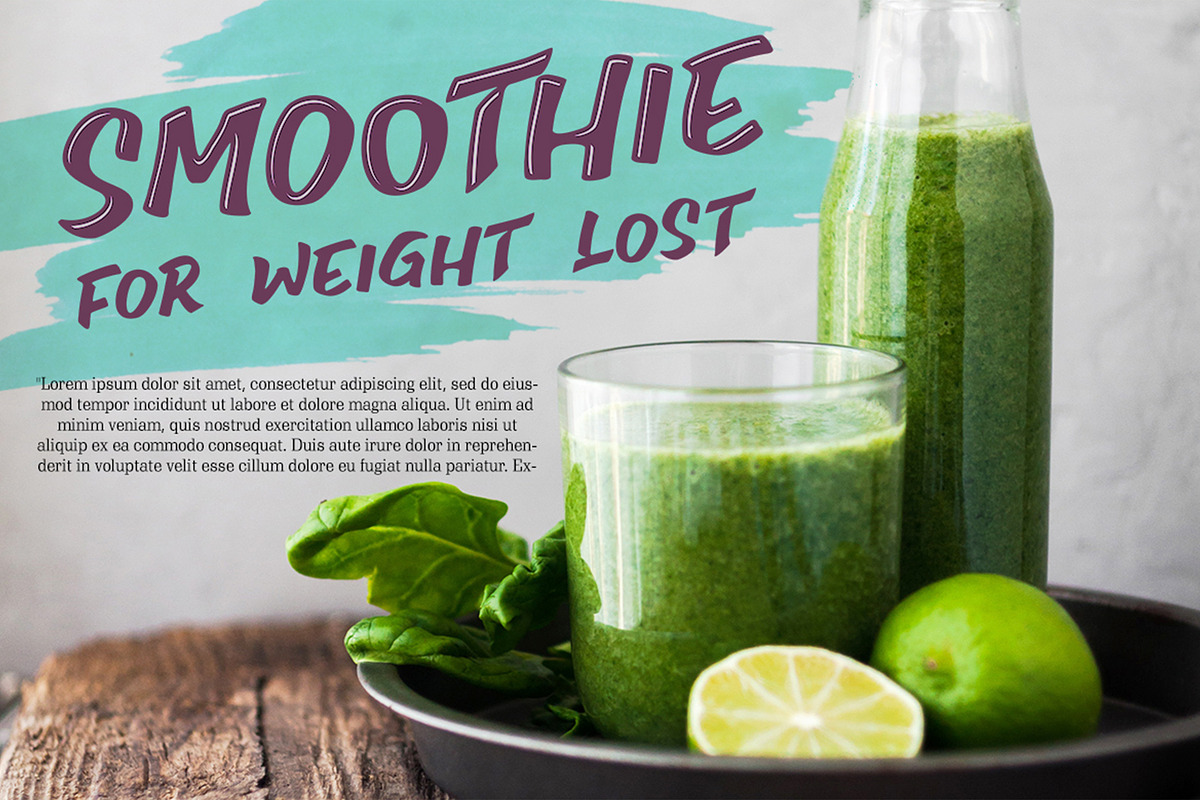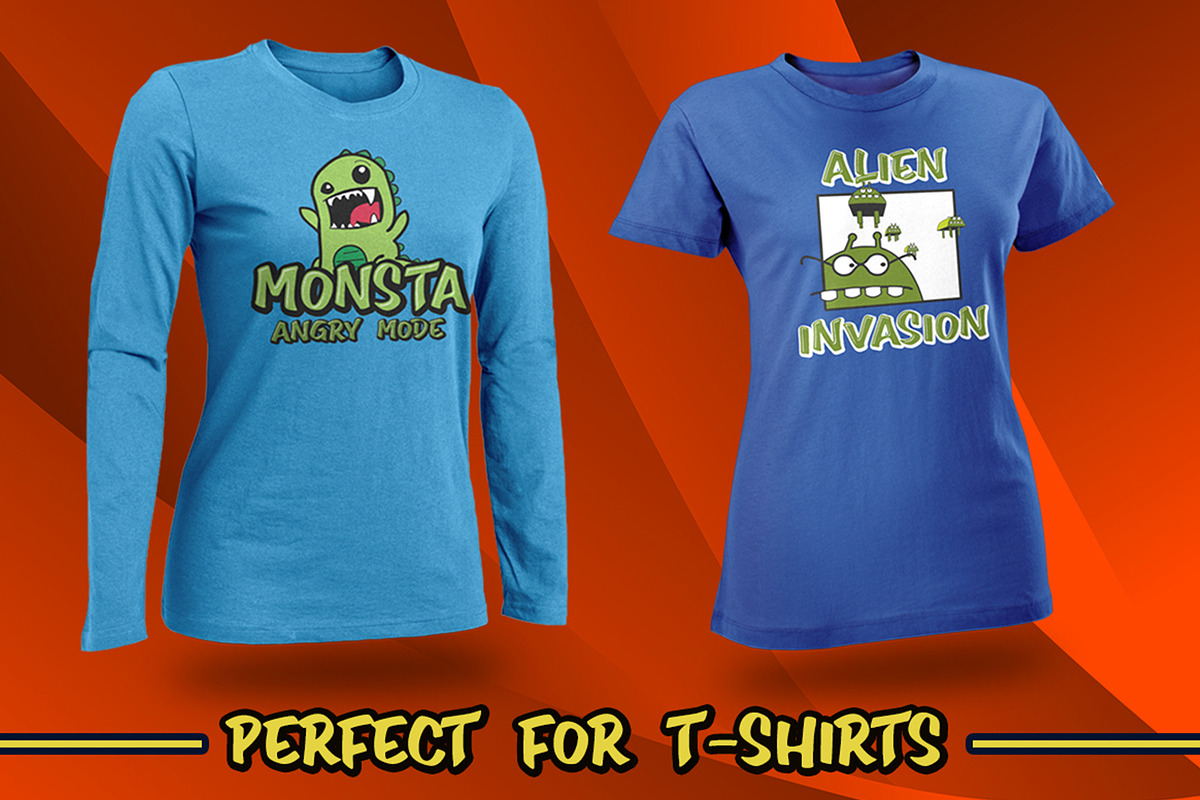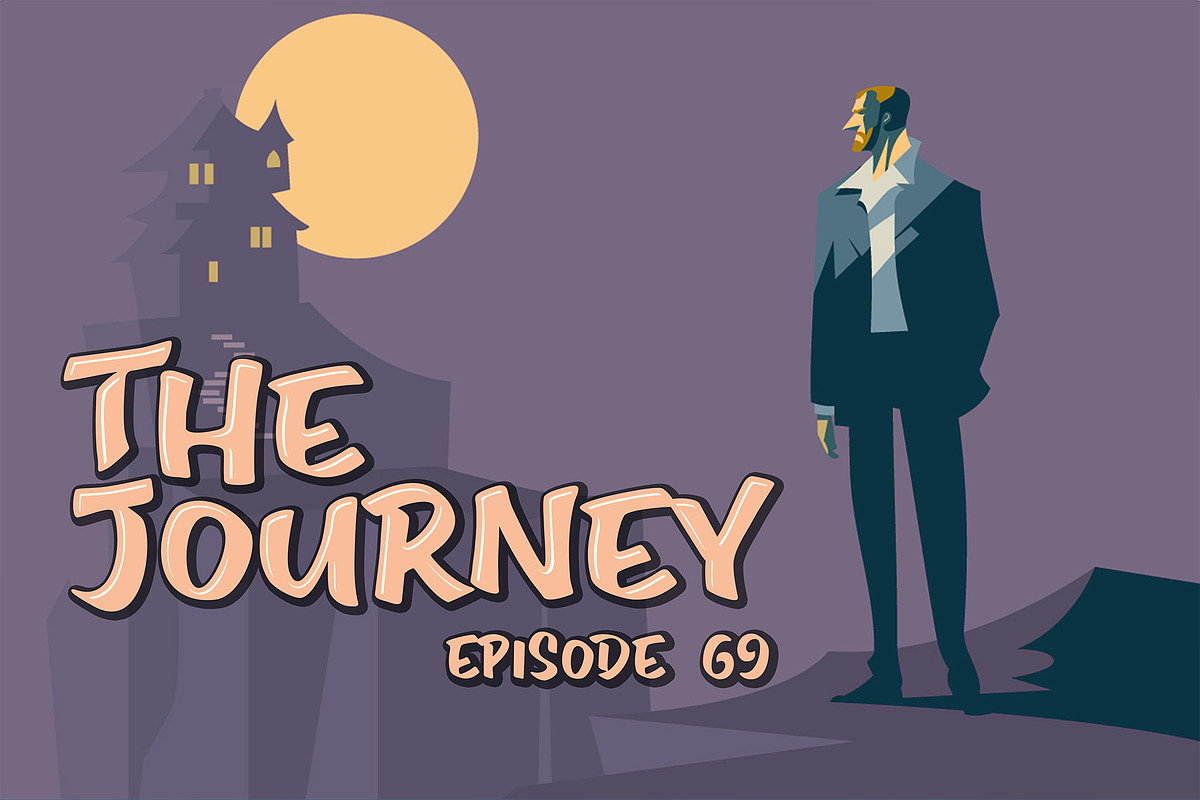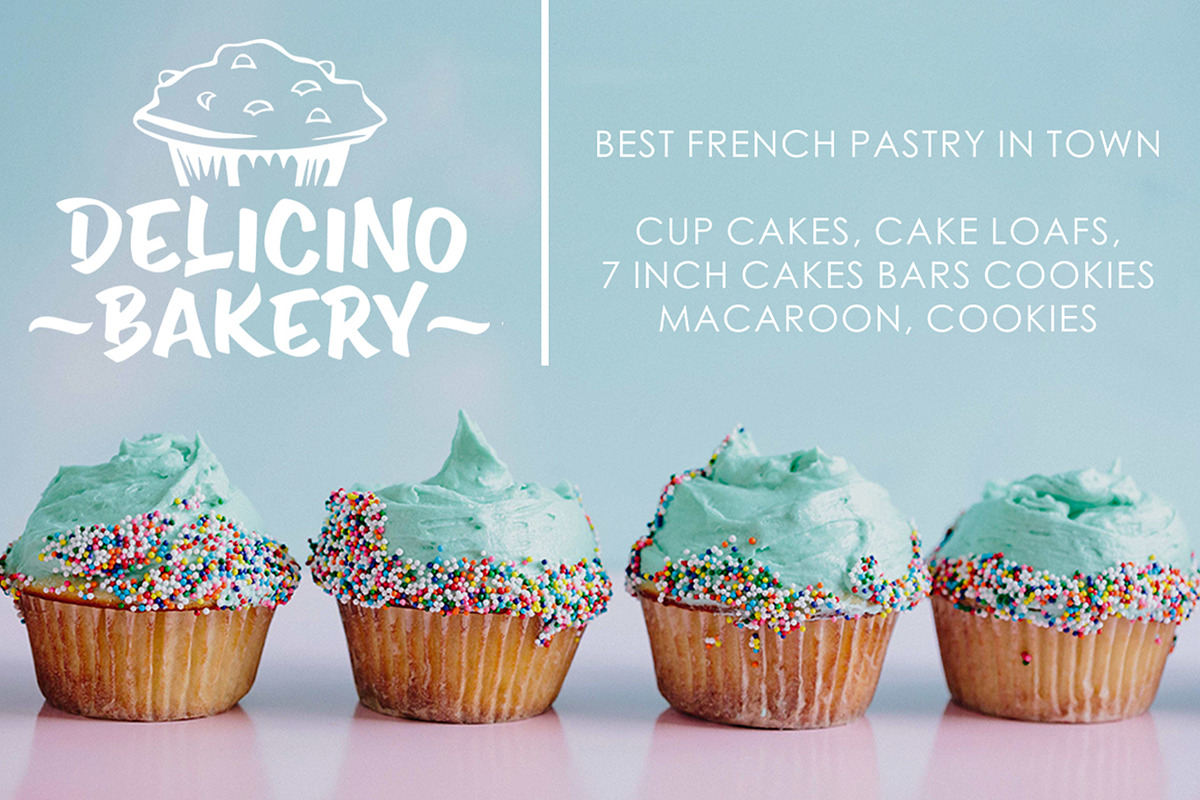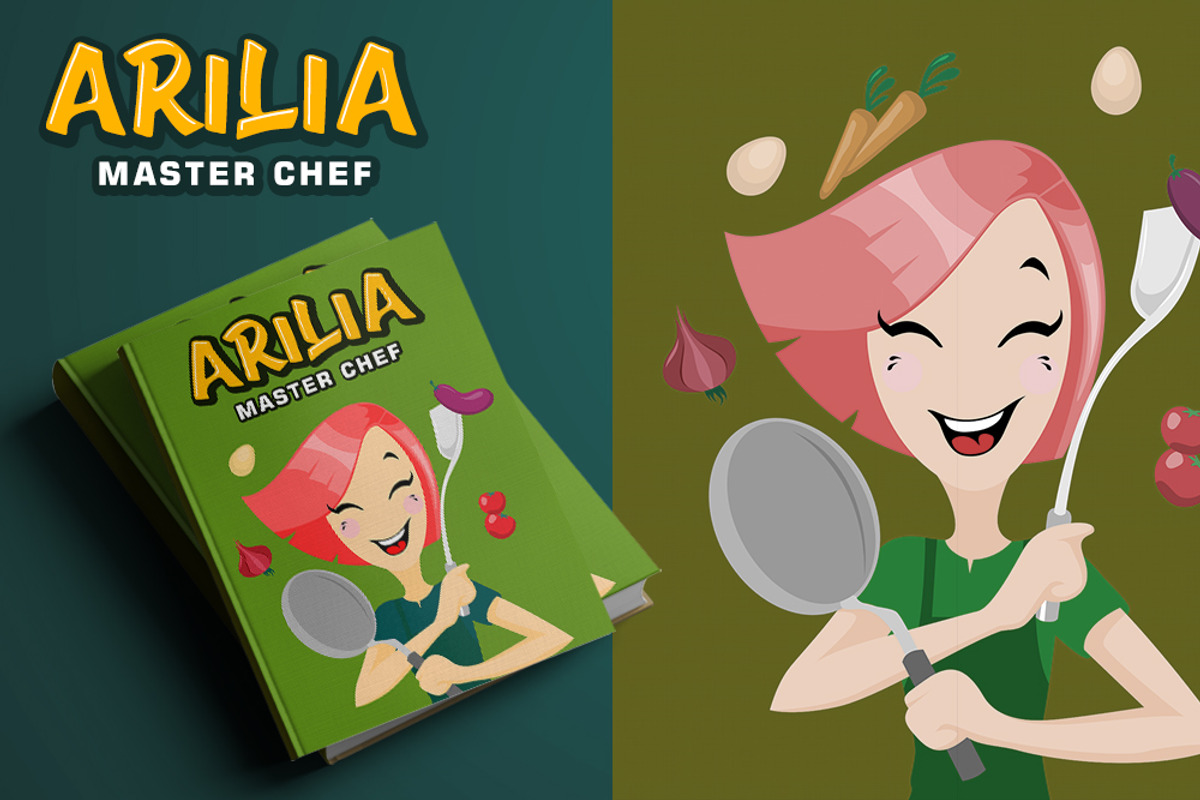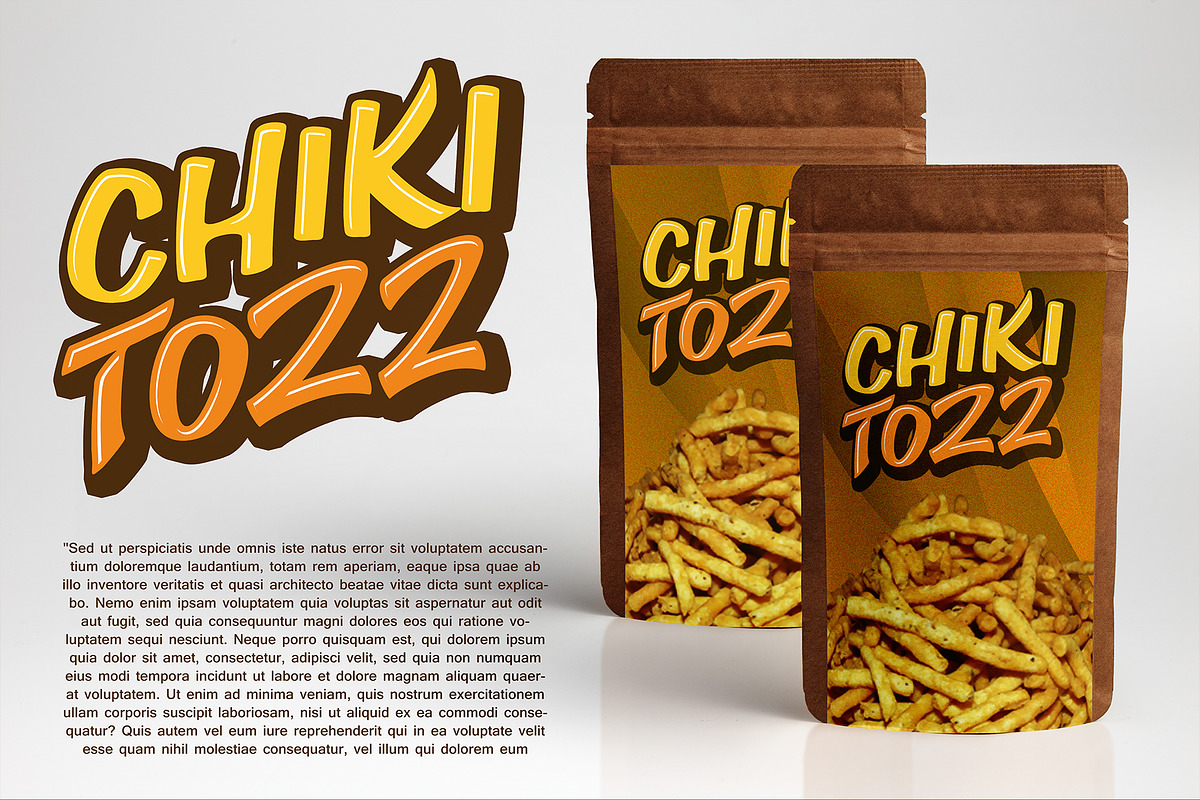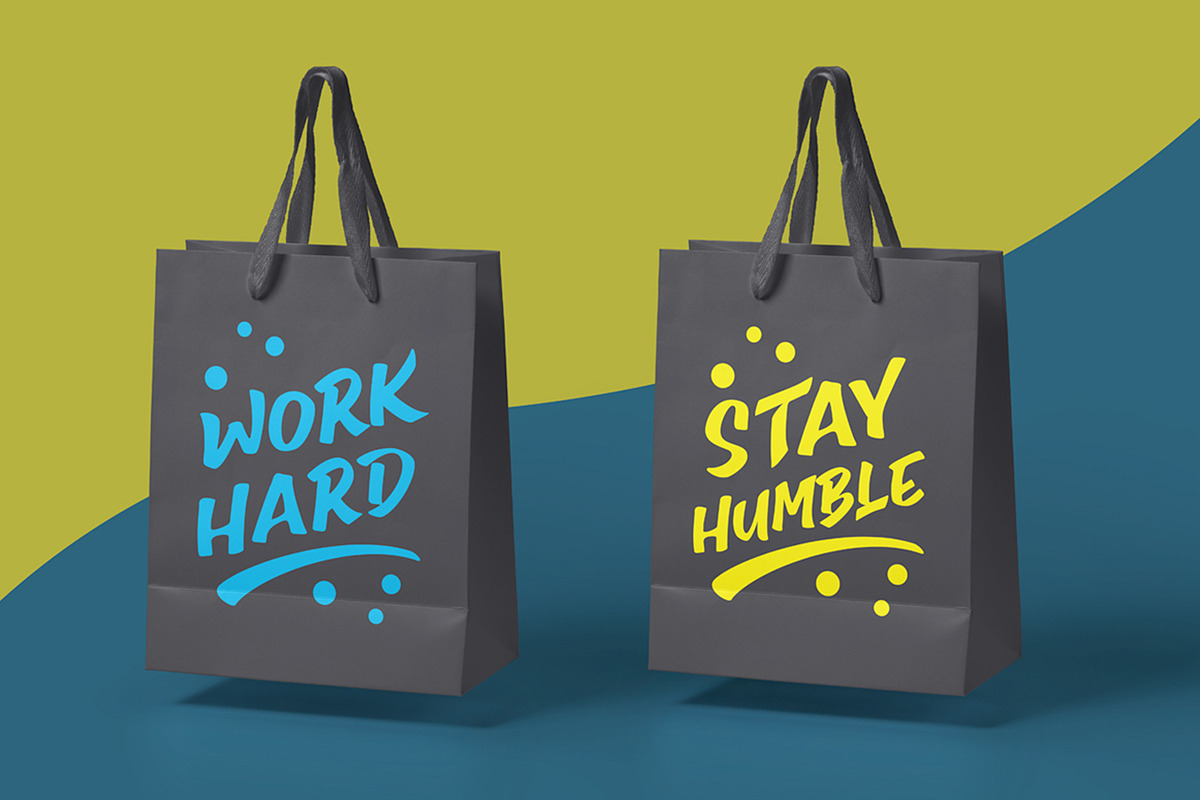
SMILEN / A Fun Font
Smilen is a layered font combination. The unique characteristics of Smilen make it very suitable for various purposes such as quotes, t-shirt designs, flyers, youtube channels, labels, logos etc.
Smilen Basic Smilen Inner
SMILEN / A Fun Font by Subectype Studio fits naturally into Branding, posters, packaging, typography.